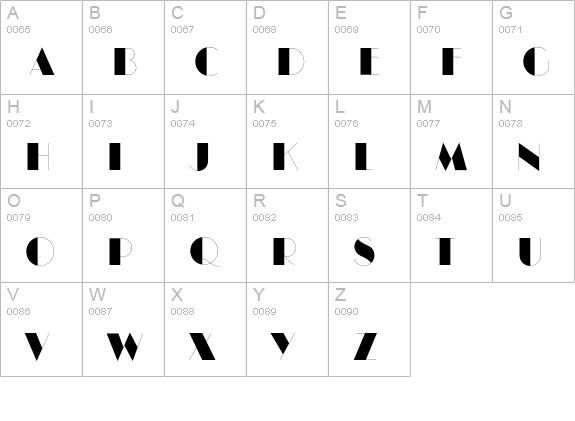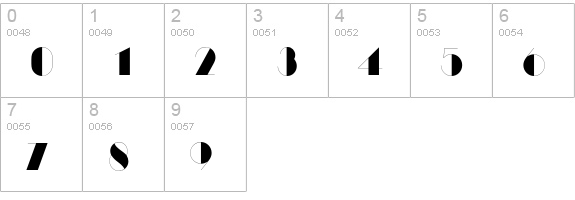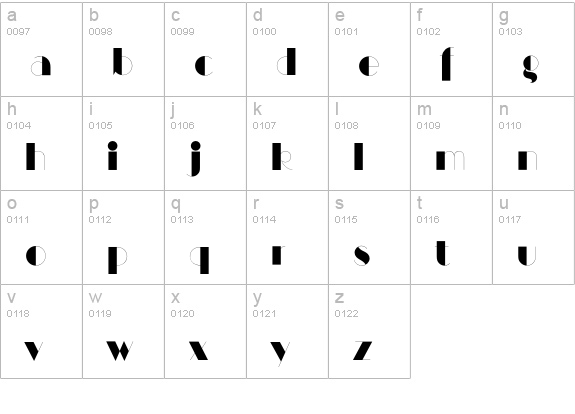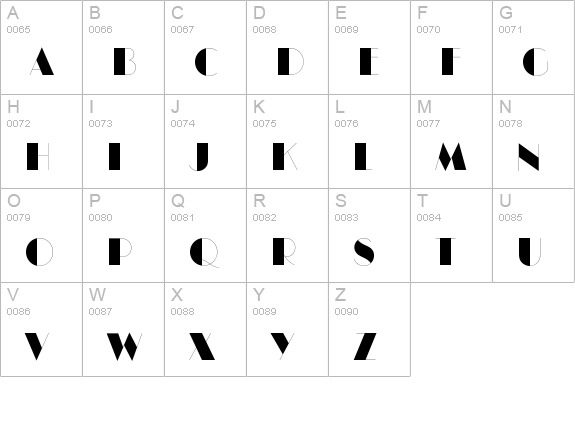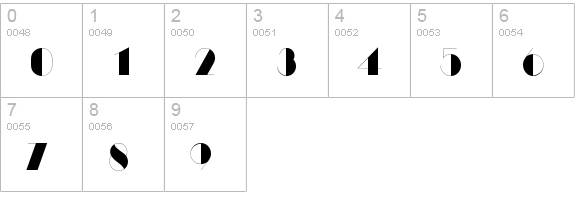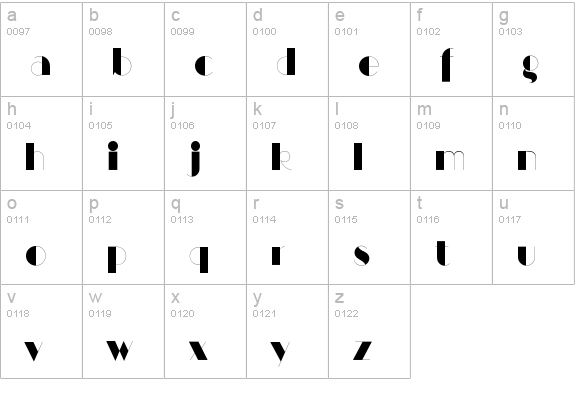
ManhattanEF Font Details
Introducing ManhattanEF, a stunning and versatile font that exudes elegance and sophistication. With its clean lines and refined curves, this typeface is perfect for adding a touch of class to any design project. Whether you're designing a logo, creating a website, or crafting a beautiful invitation, ManhattanEF is sure to impress. What sets ManhattanEF apart is not only its impeccable design, but also its accessibility. This font is available for free download at FontsMarket.com, making it easily accessible to designers and creatives worldwide. Say goodbye to expensive licensing fees and limited options, because ManhattanEF is here to fulfill all your typography needs without breaking the bank. But don't let its affordability fool you – ManhattanEF is a font that doesn't compromise on quality. Each character is meticulously crafted, ensuring that every letter, number, and symbol is pixel-perfect. The result is a font that is both visually stunning and highly legible, making it suitable for a wide range of applications. Whether you're aiming for a sleek and modern look or a timeless and classic aesthetic, ManhattanEF has you covered. Its versatility allows it to seamlessly adapt to any design style, making it a go-to choice for designers of all levels of expertise. Its clean and crisp appearance adds a touch of professionalism to any project, elevating your work to new heights. So why wait? Discover the beauty and versatility of ManhattanEF today. Download it for free at FontsMarket.com and unlock a world of endless design possibilities. Whether you're a seasoned designer or just starting out, this font is sure to become a valuable tool in your creative arsenal. Don't miss out on the opportunity to enhance your designs with the elegance and sophistication of ManhattanEF.